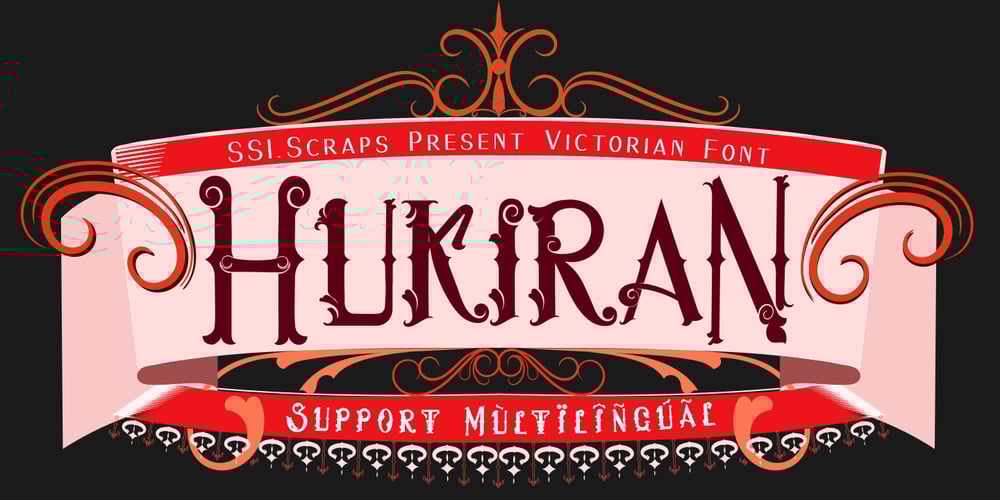
Hukiran Font Family was designed by Syukur Setiyadi and published by SSI.Scraps. Hukiran contains 1 styles and family package options. Hukiran is a Victorian font that features carefully engraved characters. There is beautiful crafting in every glyph. You can use it will to your design look vintage awesome. It is an authentic style of Jepara’s crafting font. For a Hukiran bonus package with editable SVG files, click here.